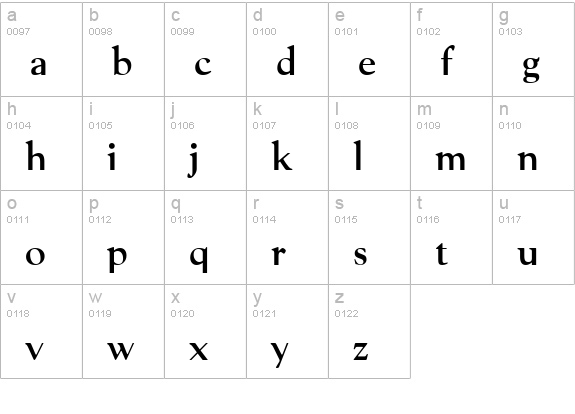
PFVenture Solid Font Details
PFVenture Solid is a modern and versatile font that exudes strength and professionalism. Its clean lines and bold appearance make it perfect for a wide range of design projects, from logos to posters to branding materials. This font is free to download at FontsMarket.com, making it accessible to designers of all levels looking to add a touch of sophistication to their work. With its timeless appeal and eye-catching style, PFVenture Solid is sure to make a lasting impression on any project.